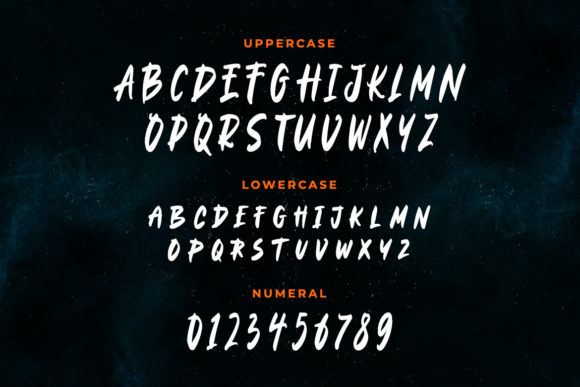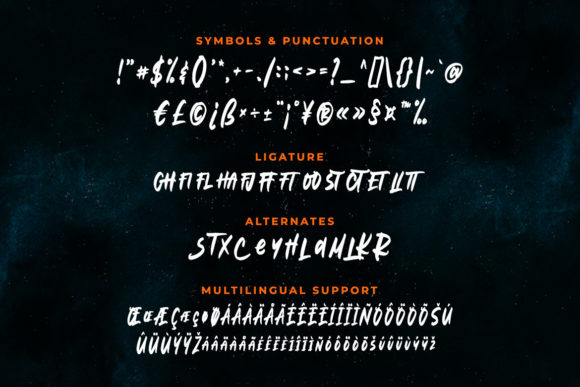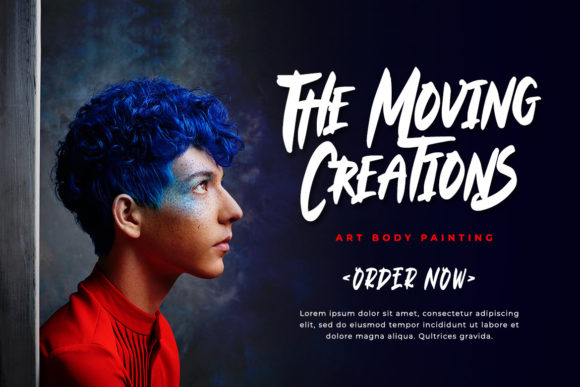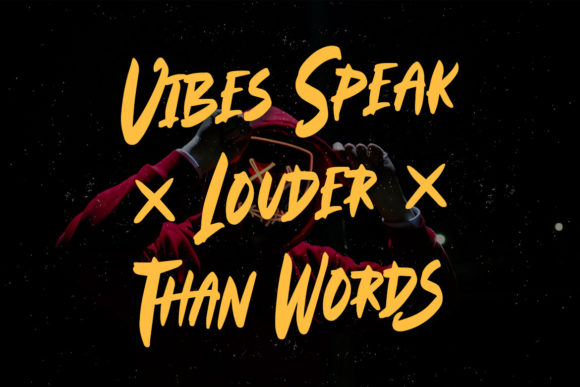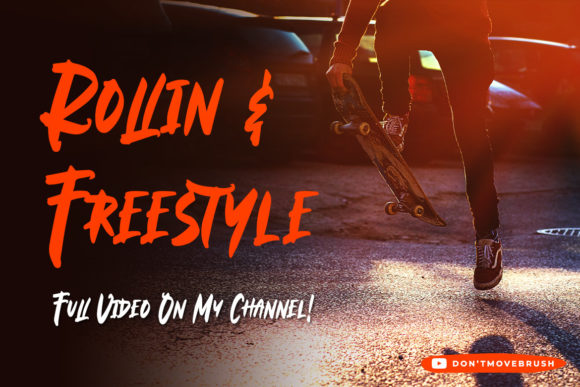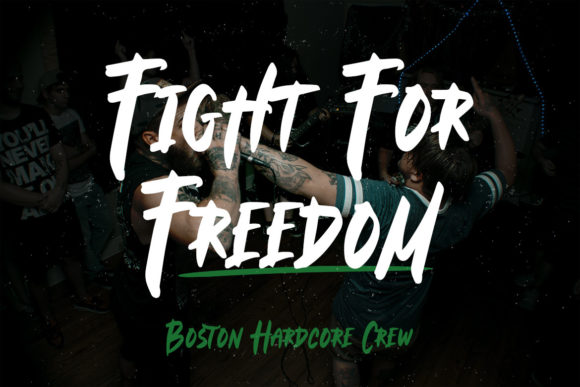
Introducing Don’t Move Font: The Ultimate Choice for Designers and Crafters
Are you tired of using the same old fonts for your designs? Look no further! Don’t Move Font is a trendy display font that has taken the design world by storm with its cool, street art vibe. This font is perfect for designers and crafters who want to add a touch of edginess to their work. In this article, we’ll dive into the features and benefits of Don’t Move Font, and explore how it can elevate your designs to the next level.
What is Don’t Move Font?
Don’t Move Font is a modern display font that is inspired by the urban landscape. Its unique design is characterized by bold lines, sharp edges, and a rebellious attitude. This font is perfect for creating eye-catching designs that demand attention. Whether you’re designing a logo, advertisement, or t-shirt, Don’t Move Font is sure to make a statement.
Features of Don’t Move Font
- Cool, street art vibe: Don’t Move Font has a unique and edgy design that is perfect for designers who want to add a touch of urban flair to their work.
- Suitable for various designs: This font is versatile and can be used for a wide range of designs, including t-shirts, sportswear, logos, advertisements, clothing, and more.
- PUA encoded: Don’t Move Font is PUA (Private Use Area) encoded, which means you can access all of the amazing glyphs and ligatures with ease. This feature makes it easy to use the font and get creative with your designs.
Benefits of Using Don’t Move Font
So, why should you choose Don’t Move Font for your designs? Here are just a few benefits of using this amazing font:
- Stand out from the crowd: With Don’t Move Font, you can create designs that are truly unique and eye-catching. This font is sure to make your work stand out from the crowd and grab attention.
- Easy to use: Don’t Move Font is PUA encoded, which makes it easy to access all of the glyphs and ligatures. This feature saves you time and effort, allowing you to focus on creating amazing designs.
- Versatile: This font is suitable for a wide range of designs, from logos and advertisements to t-shirts and sportswear. You can use Don’t Move Font for various projects and still achieve great results.
Here are some tips and tricks to help you get the most out of Don’t Move Font:
- Experiment with different colors: Don’t Move Font looks great in bold, bright colors. Experiment with different color combinations to create eye-catching designs.
- Play with textures: Add texture to your designs by combining Don’t Move Font with different textures and patterns.
- Keep it simple: Don’t be afraid to keep your designs simple and clean. Sometimes, less is more, and Don’t Move Font can make a big impact on its own.
In conclusion, Don’t Move Font is a trendy display font that is perfect for designers and crafters who want to add a touch of edginess to their work. With its cool, street art vibe and PUA encoded features, this font is sure to elevate your designs to the next level. Whether you’re designing a logo, advertisement, or t-shirt, Don’t Move Font is the ultimate choice for creating eye-catching and unique designs.